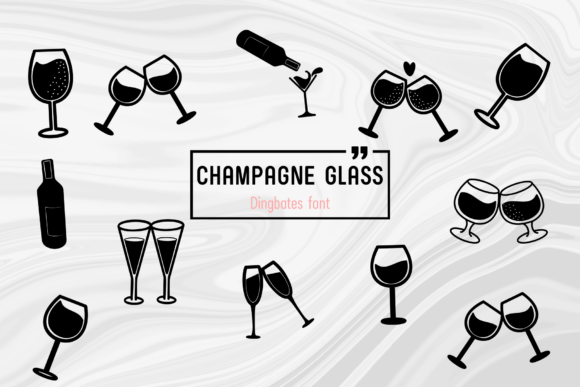
Champagne Glass Font: Elevate Your Creative Projects with Elegance
The Champagne Glass Font is a unique and elegant dingbats font that can add a touch of sophistication to various creative projects. With its beautiful design, this font is perfect for wedding invitations, DIY crafts, decorations, logos, and many other creative ideas. In this article, we will explore the features and benefits of the Champagne Glass Font and how it can enhance your creative projects.
What is Champagne Glass Font?
The Champagne Glass Font is a dingbats font that features elegant and sophisticated designs, including champagne glasses, bottles, and other related icons. This font is perfect for anyone looking to add a touch of luxury and glamour to their creative projects. The font is highly versatile and can be used for various purposes, including wedding invitations, DIY crafts, decorations, logos, and more.
Features of Champagne Glass Font
- Elegant Design: The Champagne Glass Font features elegant and sophisticated designs that can add a touch of luxury to your creative projects.
- Dingbats Font: This font is a dingbats font, which means it features icons and symbols rather than traditional letters and numbers.
- Highly Versatile: The Champagne Glass Font is highly versatile and can be used for various purposes, including wedding invitations, DIY crafts, decorations, logos, and more.
Benefits of Using Champagne Glass Font
The Champagne Glass Font offers several benefits, including:
- Adds Elegance: This font can add a touch of elegance and sophistication to your creative projects.
- Unique Design: The Champagne Glass Font features a unique design that can help your projects stand out from the crowd.
- Time-Saving: This font can save you time and effort by providing you with pre-designed icons and symbols.
- Cost-Effective: The Champagne Glass Font is a cost-effective solution for adding elegance and sophistication to your creative projects.
Creative Ways to Use Champagne Glass Font
The Champagne Glass Font can be used in various creative ways, including:
- Wedding Invitations: This font is perfect for wedding invitations, adding a touch of elegance and sophistication to your special day.
- DIY Crafts: The Champagne Glass Font can be used for DIY crafts, such as making cards, gift tags, and other paper crafts.
- Decorations: This font can be used to create beautiful decorations, such as garlands, banners, and other decorative items.
- Logos: The Champagne Glass Font can be used to create elegant and sophisticated logos for businesses and organizations.
Tips and Tricks for Using Champagne Glass Font
Here are some tips and tricks for using the Champagne Glass Font:
- Use it Sparingly: Use the Champagne Glass Font sparingly to avoid overwhelming your design.
- Combine with Other Fonts: Combine the Champagne Glass Font with other fonts to create a unique and interesting design.
- Experiment with Colors: Experiment with different colors to find the perfect combination for your design.
- Have Fun: Most importantly, have fun and be creative!
The Champagne Glass Font is a unique and elegant dingbats font that can add a touch of sophistication to various creative projects. With its beautiful design and highly versatile features, this font is perfect for wedding invitations, DIY crafts, decorations, logos, and many other creative ideas. By following the tips and tricks outlined in this article, you can create stunning designs that showcase your creativity and style.